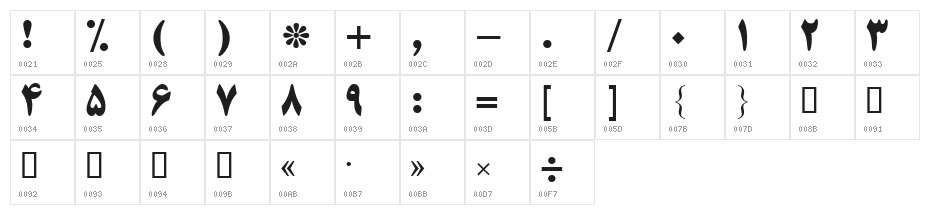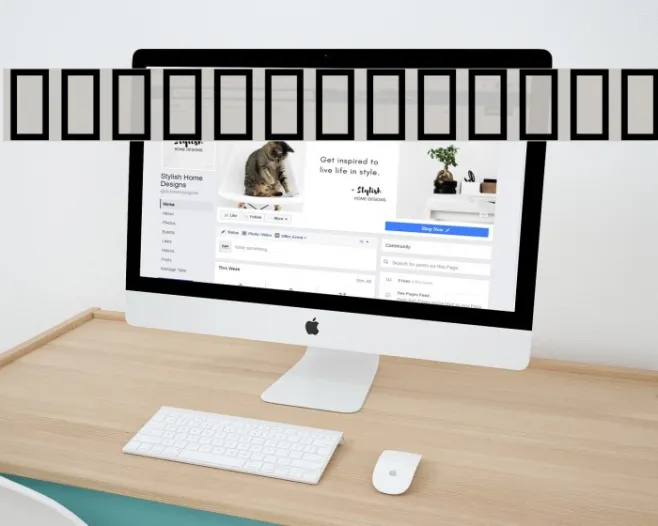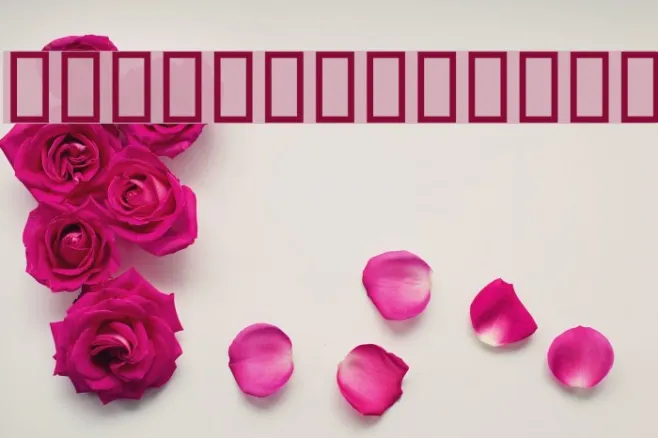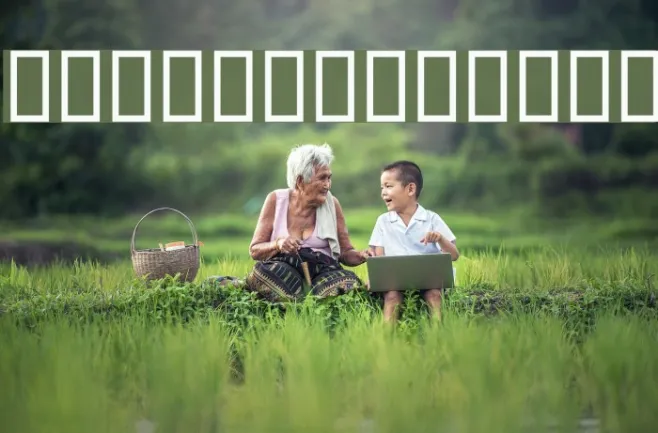
Titr Font
Titr Description
This font features a bold and artistic style with a strong emphasis on decorative elements. The characters are uniquely shaped, with a fluid and dynamic form that suggests movement and creativity. The numbers are particularly stylized, with curves and angles that add a playful yet sophisticated touch. The special characters, including punctuation marks and symbols, are designed to complement the overall aesthetic, enhancing the font's visual appeal. This font is ideal for projects that require a distinctive and eye-catching typeface.
| Proposed Projects | Ideal for branding, poster design, artistic projects, and creative advertising campaigns. |